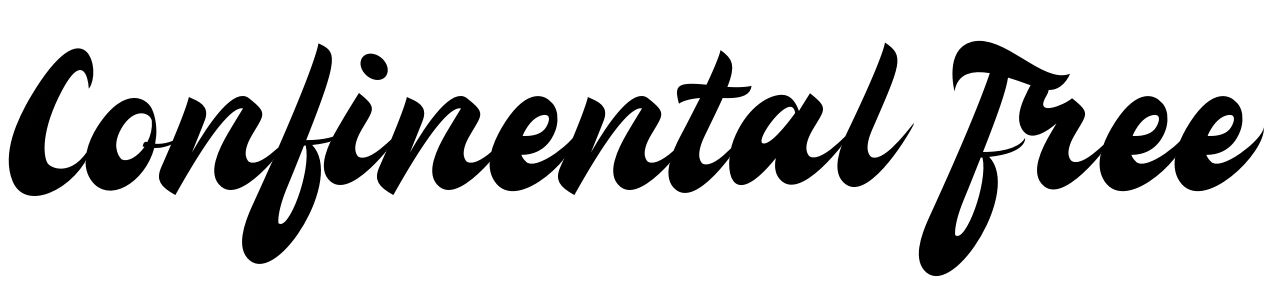
Ah, the Confinental FREE font by Inspiratype – a name that evokes the elegance of a continental breakfast in Paris but with the 'FREE' tag dangling like a cherry on top that says, "Bonjour, mon ami! You don't have to sell your croissants to afford me!" This font stands out like a dashing gentleman at a casual brunch—sophisticated yet approachable, luxurious yet graciously free.
Imagine if your letters decided to hit the gym, not to bulk up, but to become lean, mean, sophisticated machines. That's Confinental FREE. It has a certain je ne sais quoi that makes each character look as polished as a polished Parisian walking his poodle through the Tuileries Garden. The typeface boasts neatly trimmed ascenders and descenders that don’t just drop or rise but make a statement of elegance while doing so. The kerning and spacing between characters are akin to people maintaining a respectable distance in a posh elevator—not too cramped, not too spaced, just perfect.
Confinental FREE doesn’t scream for attention. No, it subtly catches your eye like the mysterious stranger across the room, making you want to know more, to engage. It's versatile, fitting across a range of designs from the cover of an avant-garde fashion magazine to the menu of that cool, artisan coffee shop downtown that charges a bit too much for a latte but gets away with it because of the ambiance.
In a world where you're bombarded by the cacophony of Comic Sans and the sternness of Times New Roman, Confinental FREE strides in like a breath of fresh air—classy, elegant, and somehow reassuringly available without a price tag. It promises to lift your design from the mundane to the remarkable, whispering sweet nothings to your aesthetic sense without costing you a dime. Talk about a font that gives you the luxe for less!
Confinental FREE